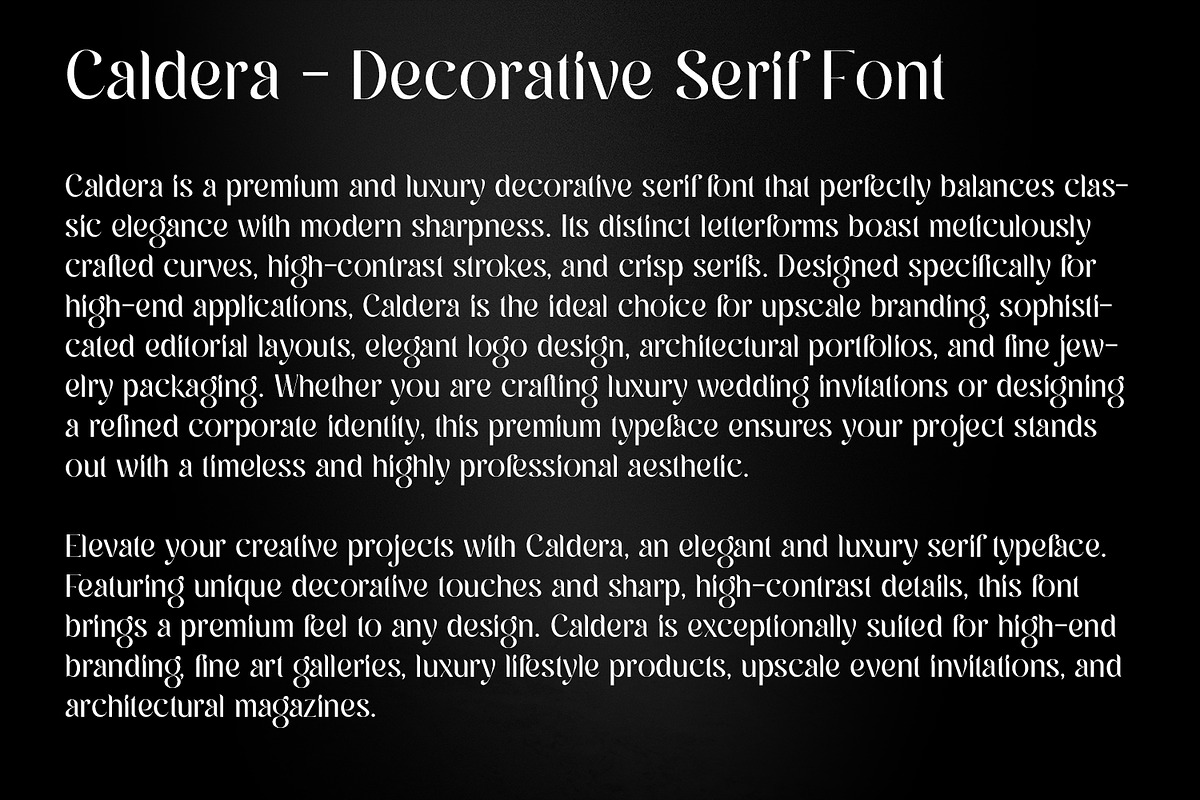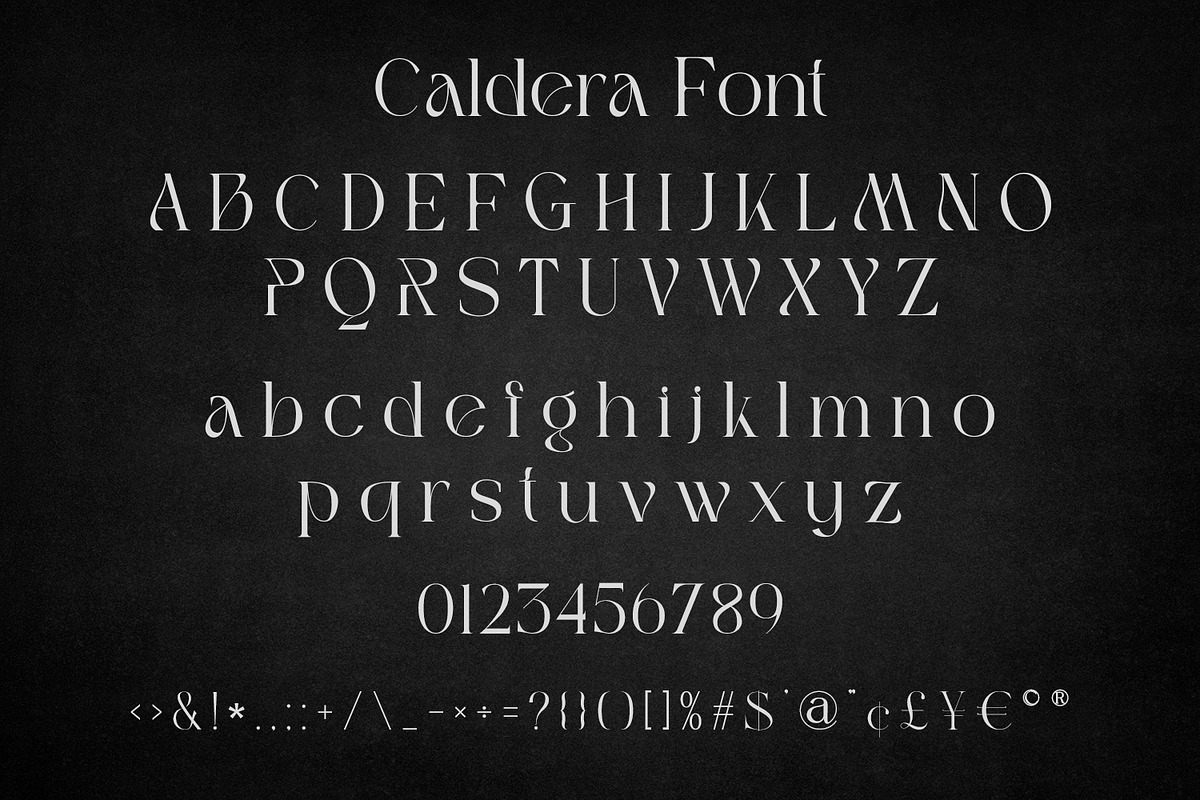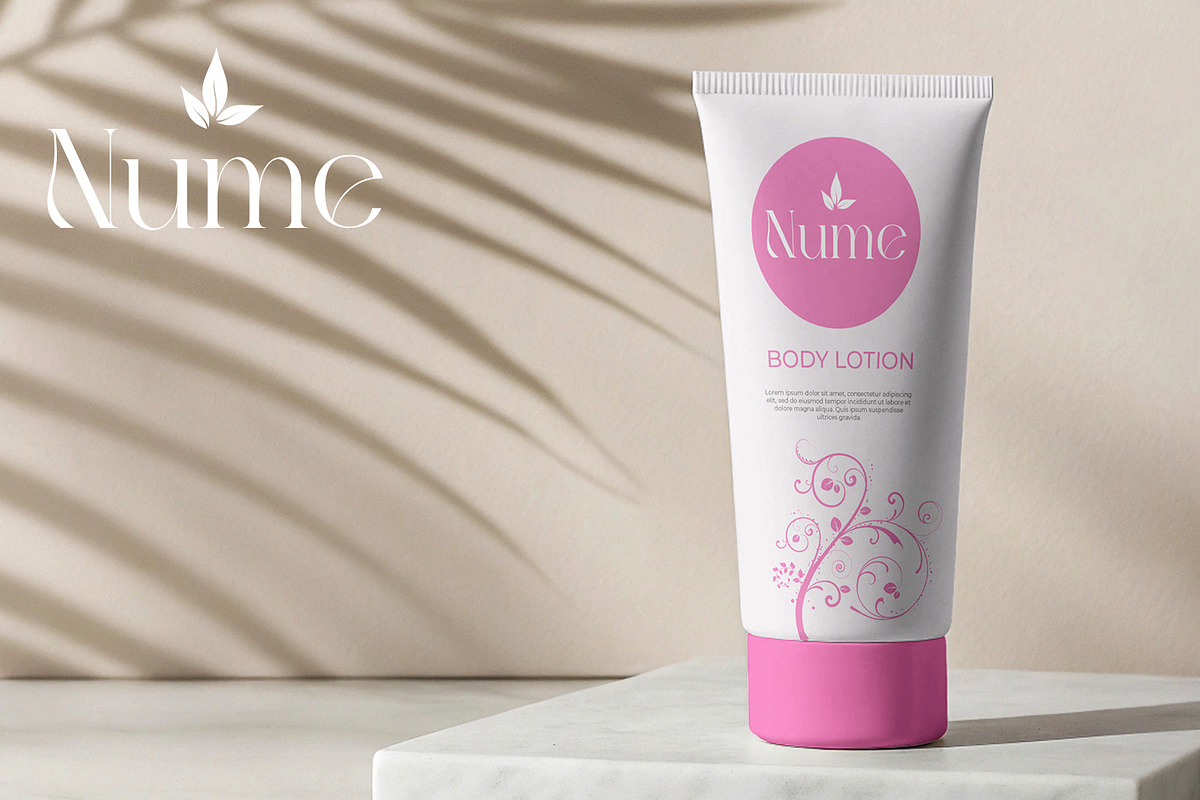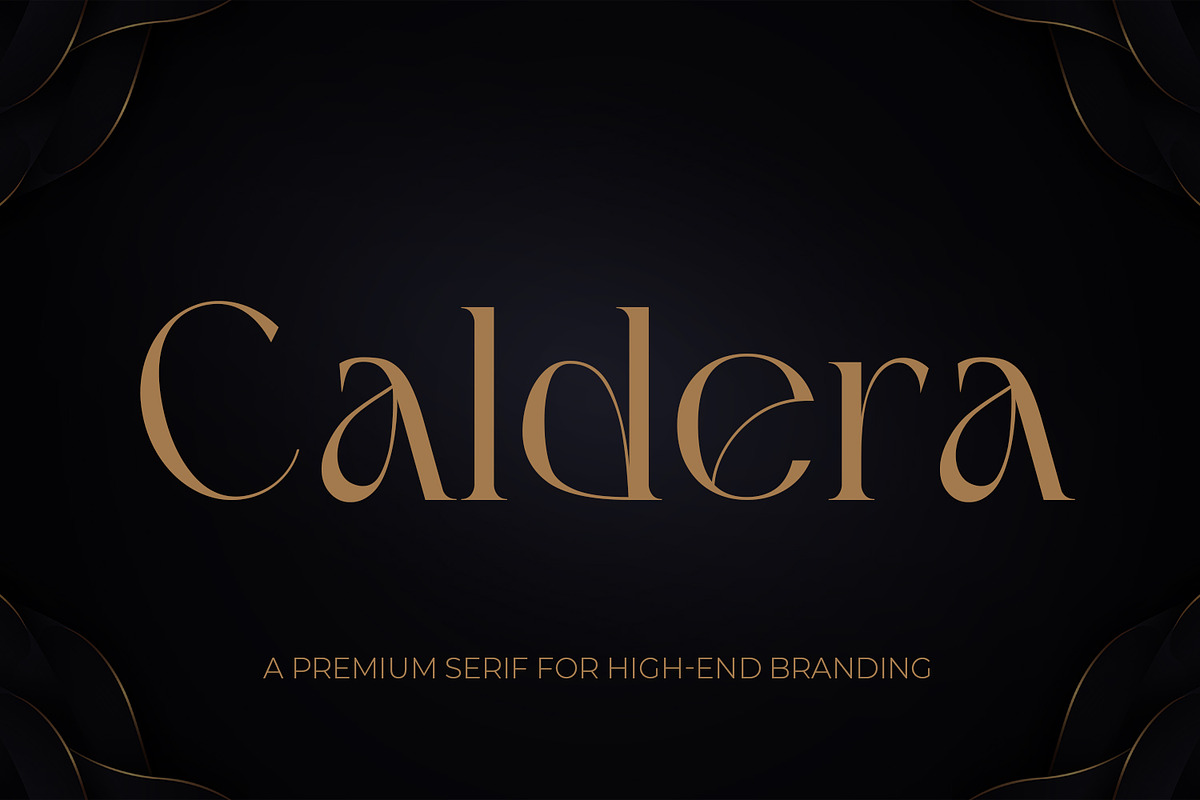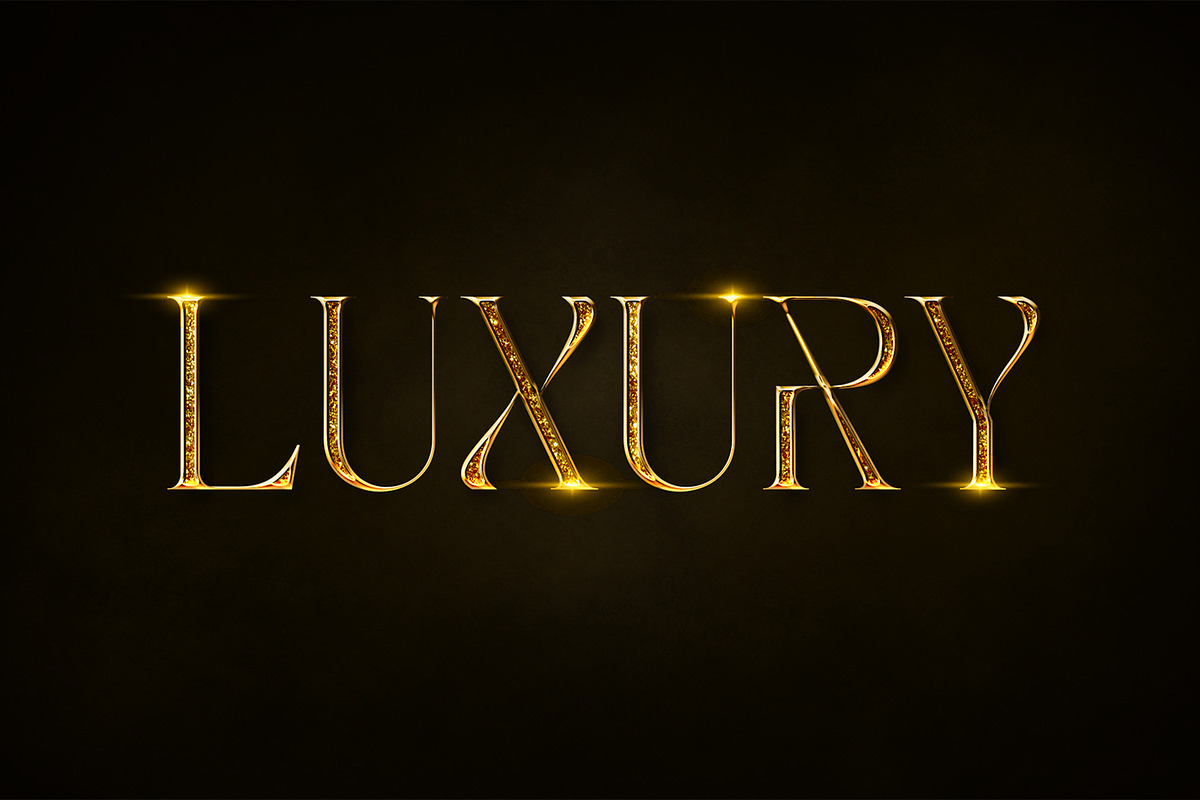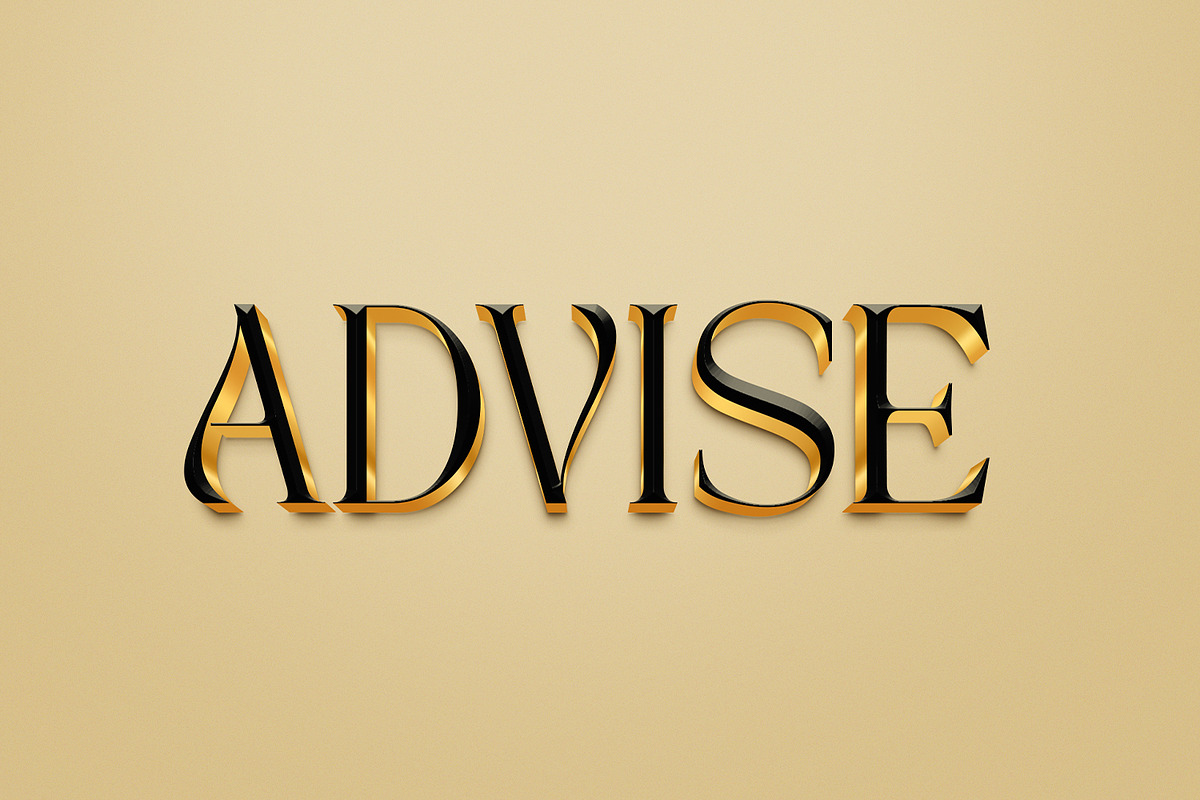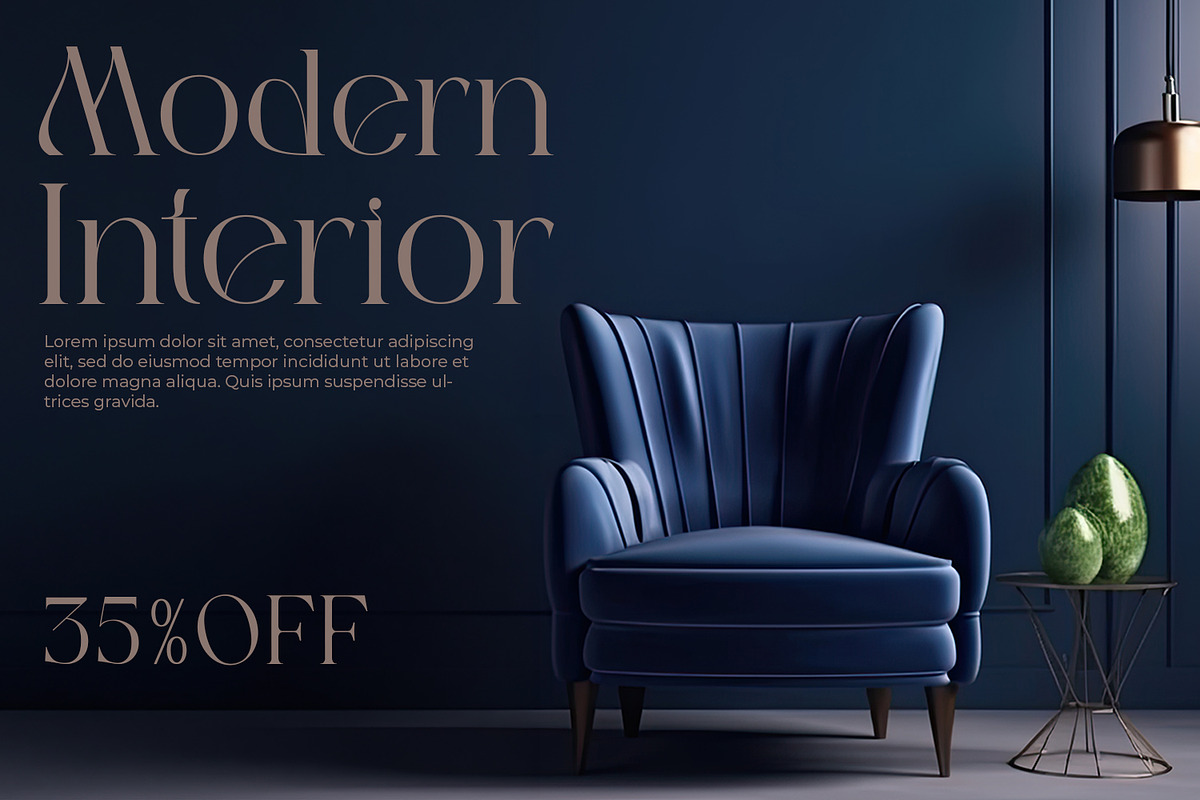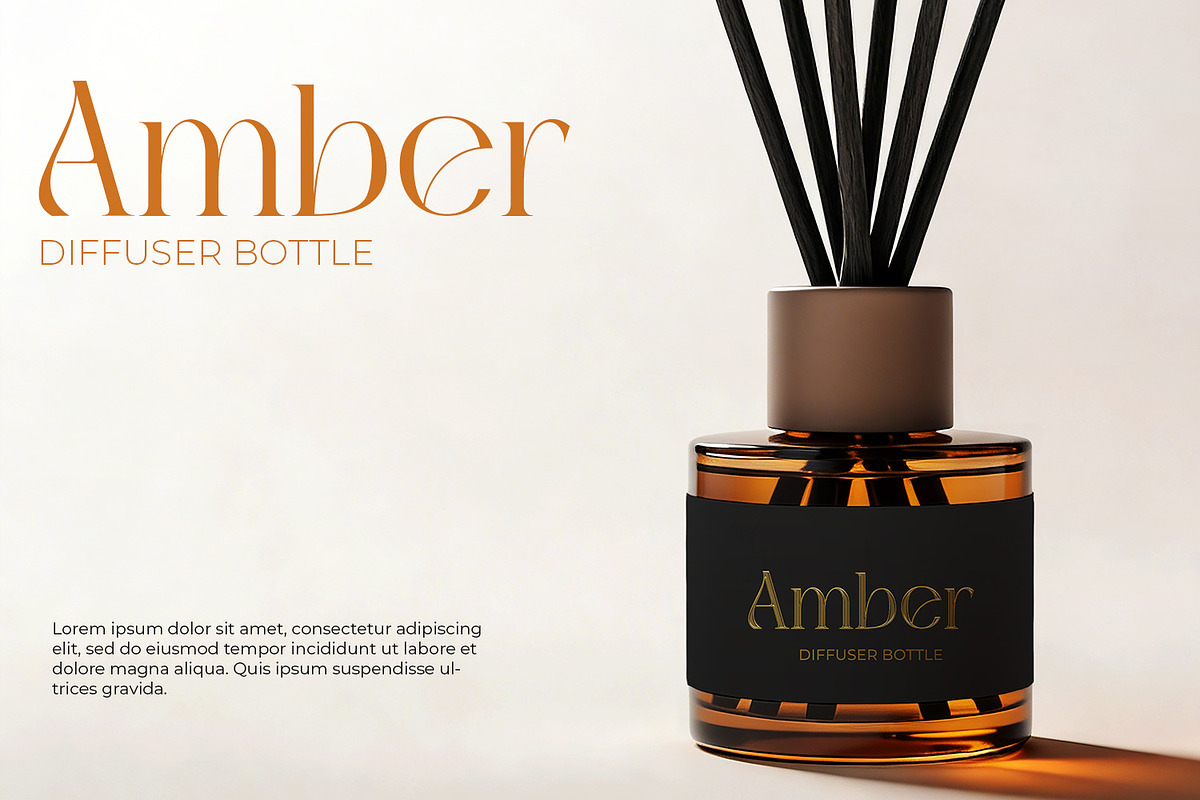
Caldera – Luxury & Elegant Serif
Caldera is a breathtakingly elegant and luxury serif font, designed with a perfect balance of classic curves and modern, sharp decorative details. This premium typeface is an absolute must-have for designers and crafters looking to add a touch of high-end sophistication and chic style to their projects.
Whether you are designing a stunning logo for a high-fashion boutique, creating majestic wedding invitations, or crafting beautiful apparel and cosmetics packaging, Caldera delivers an exclusive and highly professional aesthetic. Its high-contrast strokes and refined letterforms make it incredibly versatile for both digital typography and crafting projects (perfect for Cricut and Silhouette).
Elevate your branding, lifestyle quotes, magazine editorials, and stylish packaging with a typeface that truly stands out and brings your creative vision to life.
- High-end Fashion & Boutique Branding
- Luxury Beauty & Cosmetics Packaging
- Elegant Wedding Invitations & Stationery
- Chic Magazine Editorials & Covers
- Crafters & DIY Projects (Cricut / Silhouette)
- Elegant Lifestyle Quotes & Social Media